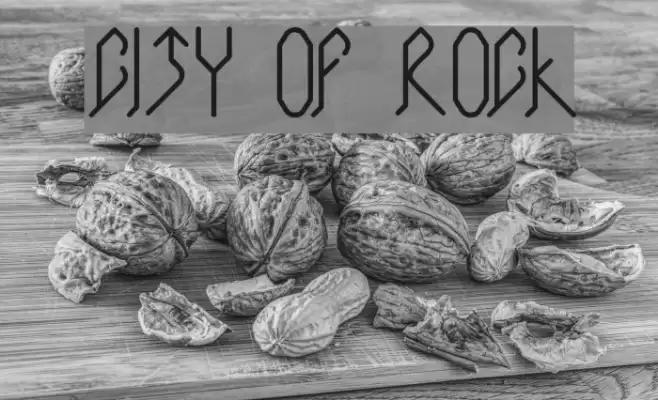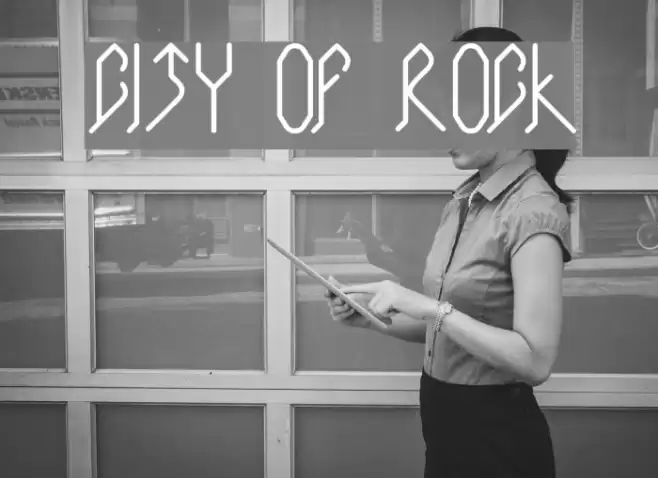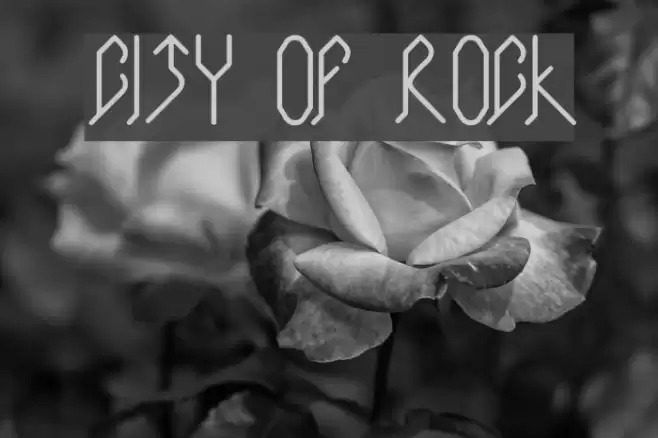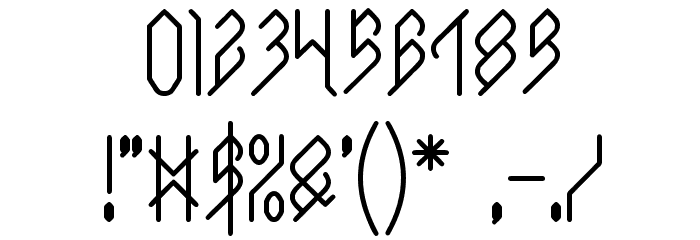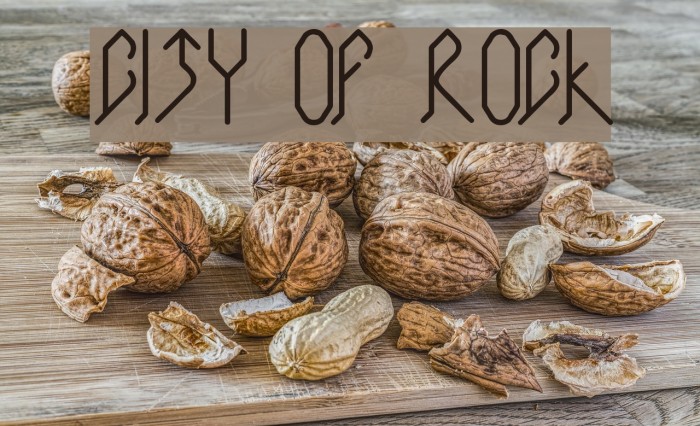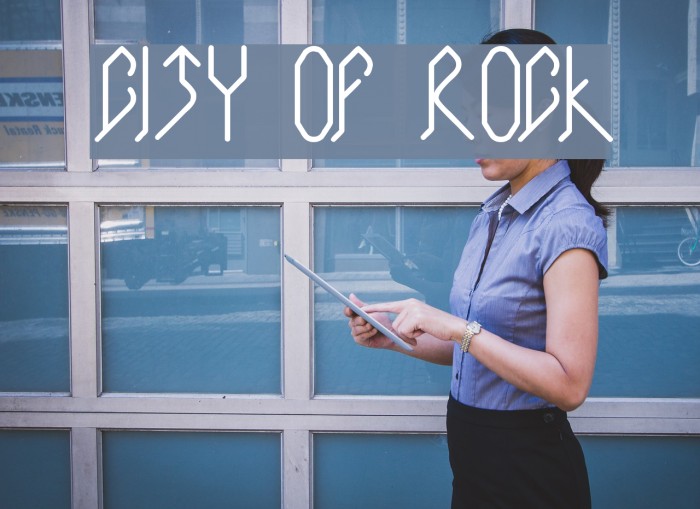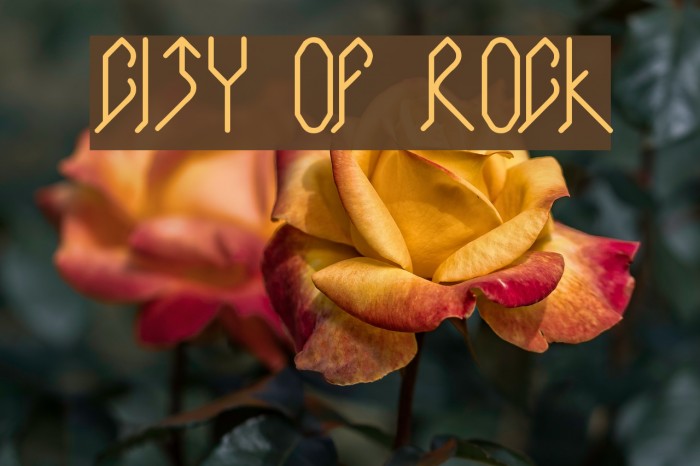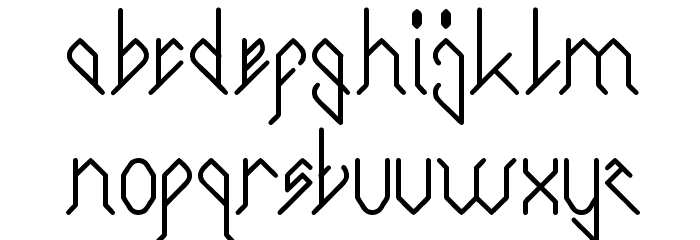
CITY OF ROCK Font
CITY OF ROCK Description
This font features a unique, angular design with a geometric and futuristic aesthetic. The characters are composed of straight lines and sharp angles, giving it a distinct, edgy appearance. The uppercase and lowercase letters maintain a consistent style, with a uniform height and width that creates a cohesive look. The numbers and special characters follow the same design principles, ensuring a harmonious overall appearance. This font's style is reminiscent of digital or sci-fi themes, making it ideal for projects that require a modern and unconventional look.
A geometric, angular font with a futuristic and edgy style from Uncategorized fonts.
- Proposed Projects: Ideal for sci-fi themed posters, video game titles, tech branding, and digital art projects.